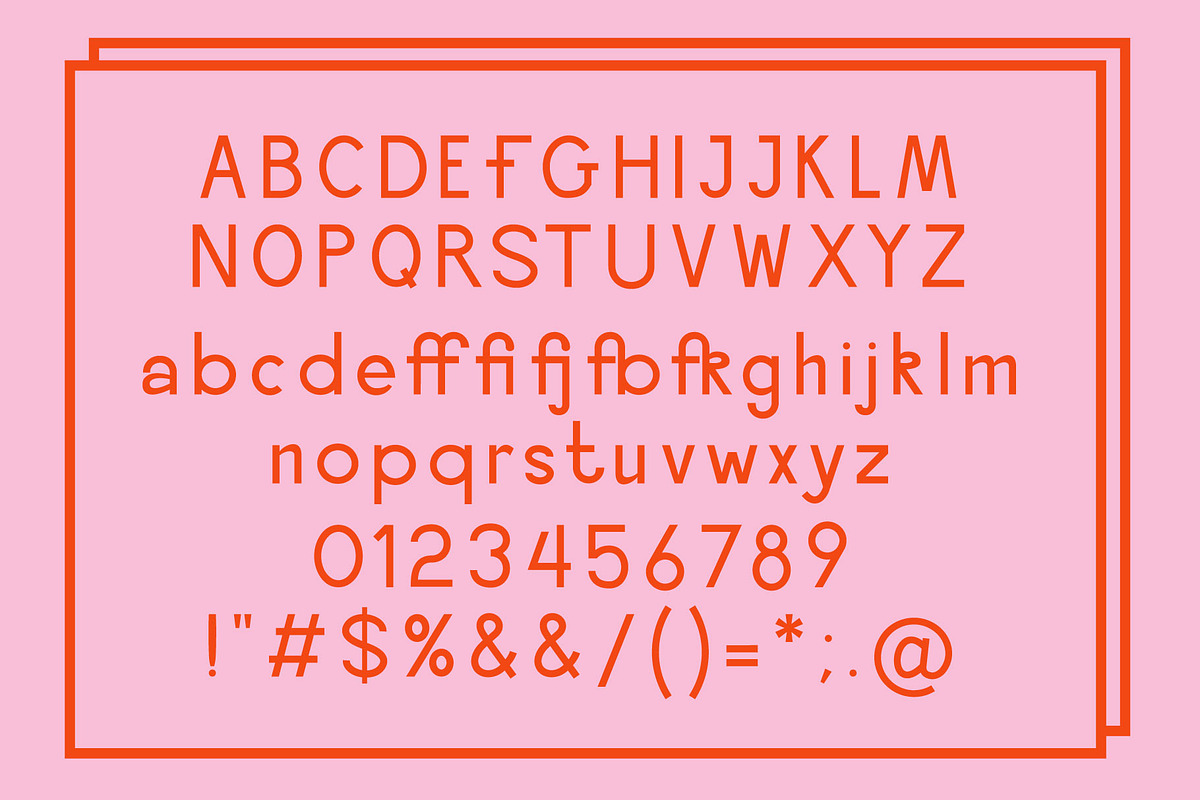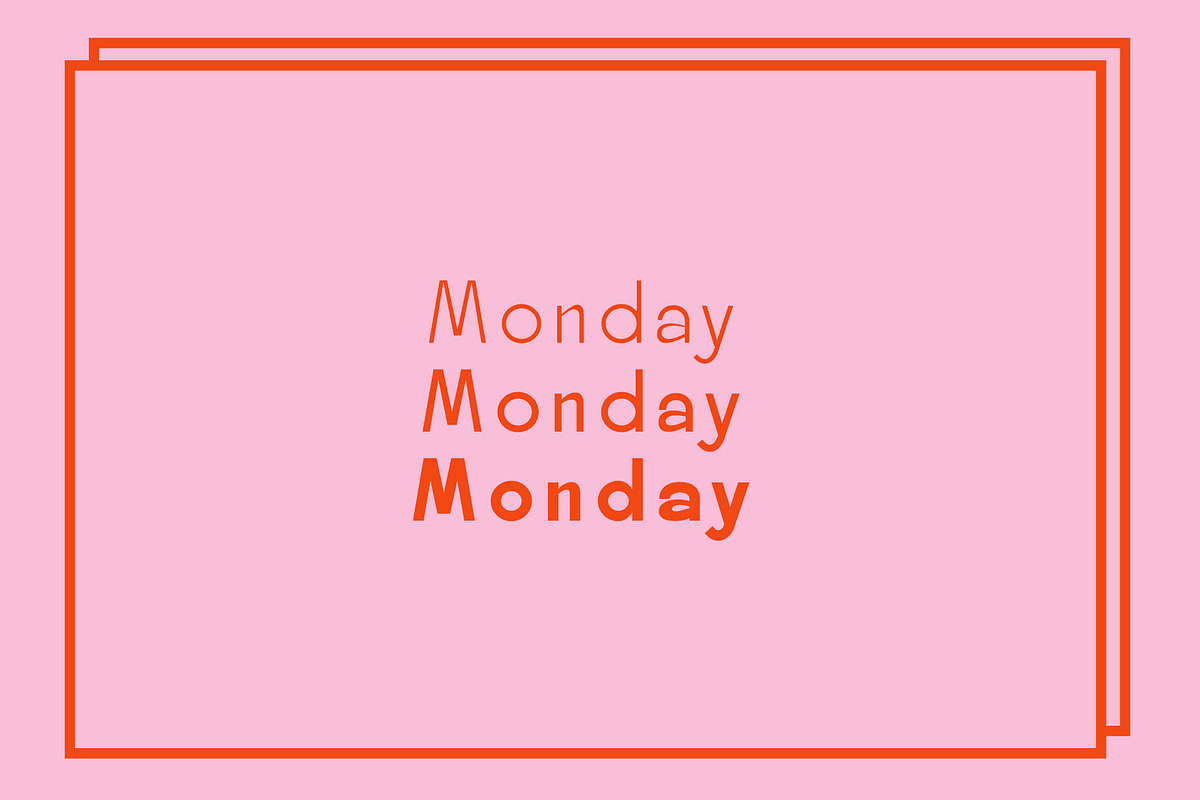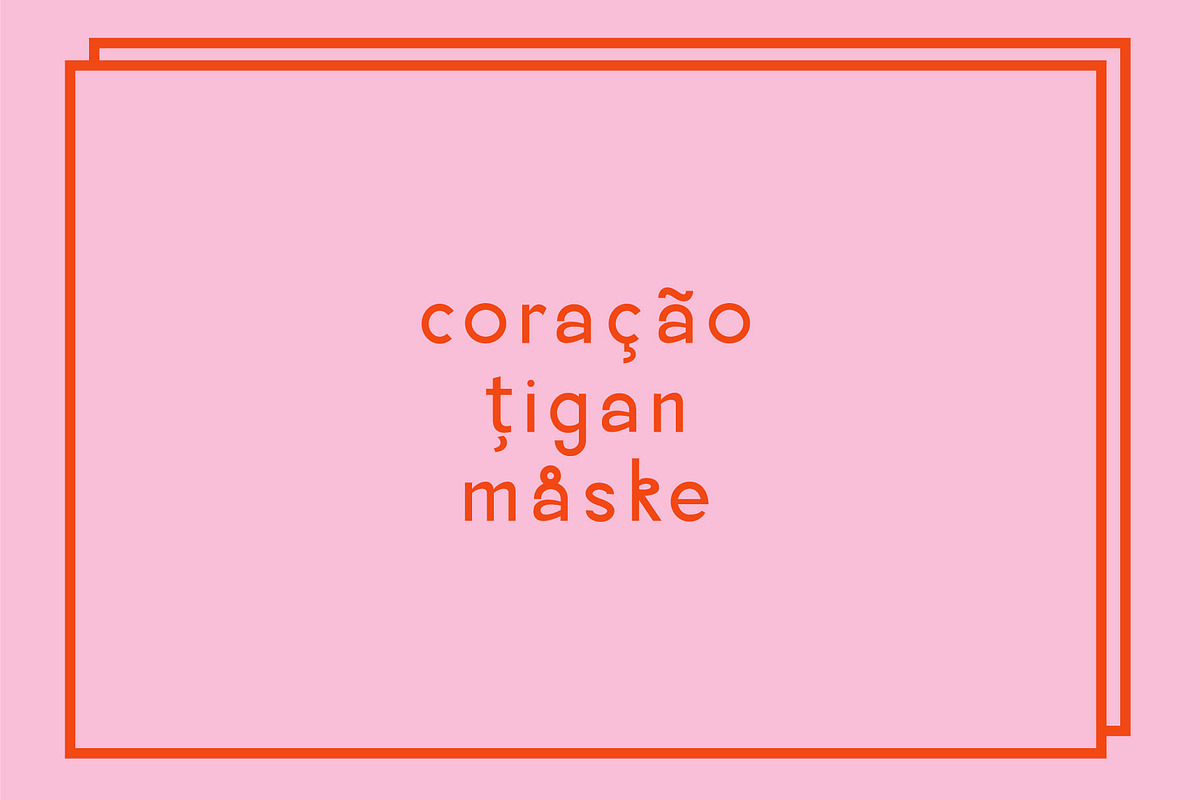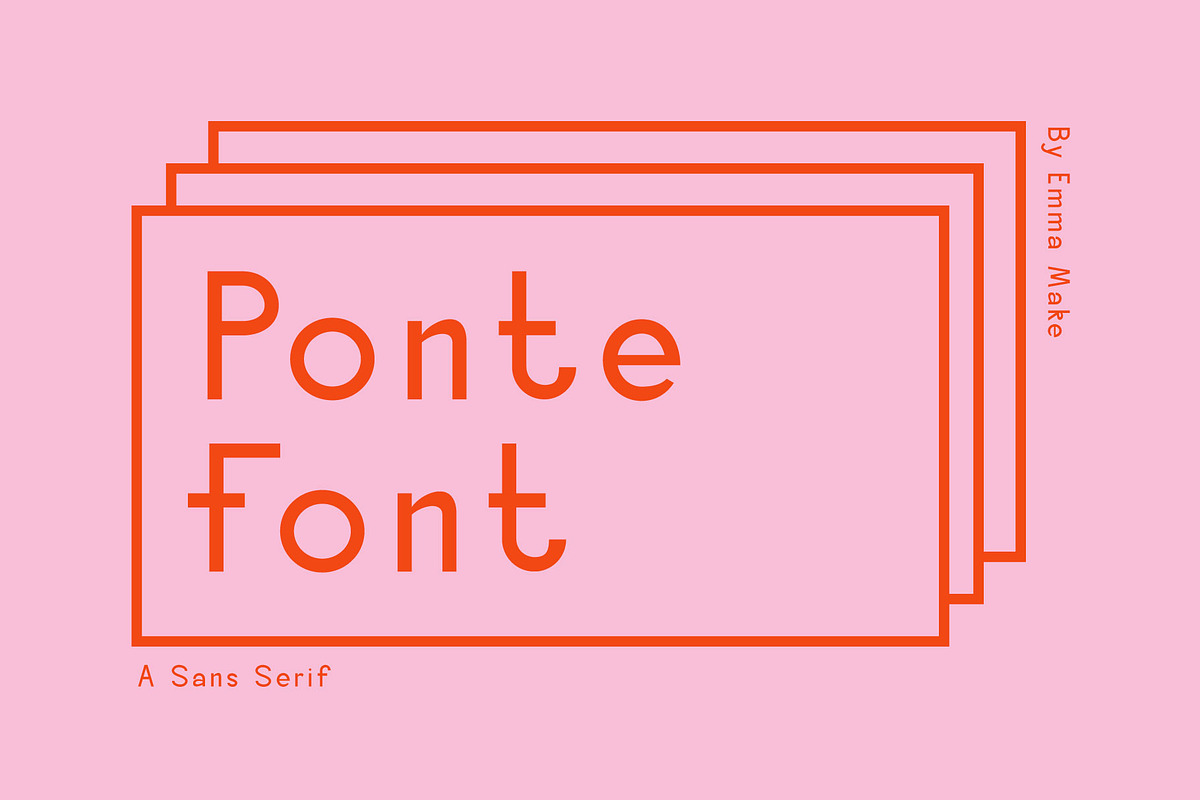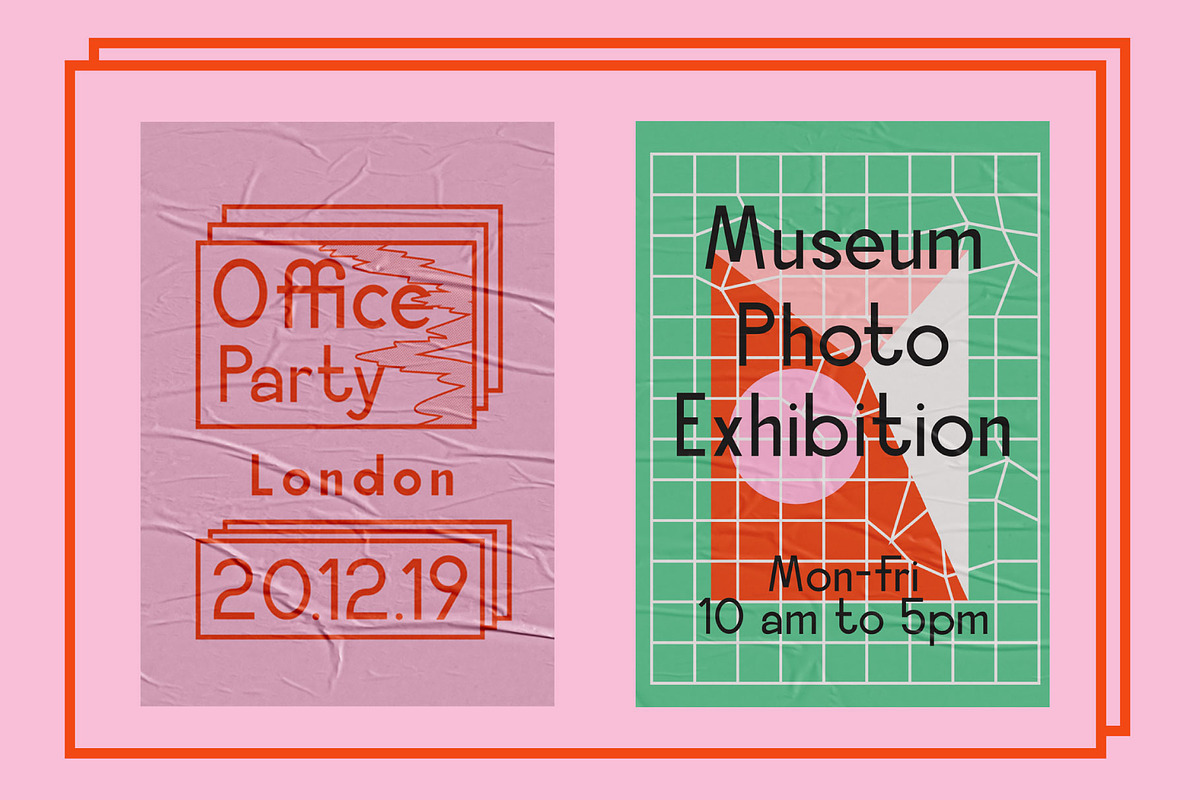
Ponte Font
Introducing ponte font, a sans serif with it's own tutorial.
The font is modern and playful with a grotesk feel. Perfect for print and web design.
punctuation, symbols, numbers
Supports: Danish, Dutch, Finnish, Flemish, German, Icelandic, Irish, Italian, Norwegian, Portuguese, Spanish, Swedish, Basque, Breton, Catalan, Croatian, Czech, Esperanto, Estonian, French, Frisian, Hungarian, Latvian, Lithuanian, Polish, Provençal, Romanian, Sami, Slovenian, Sorbian, Turkish, Welsh, and many others